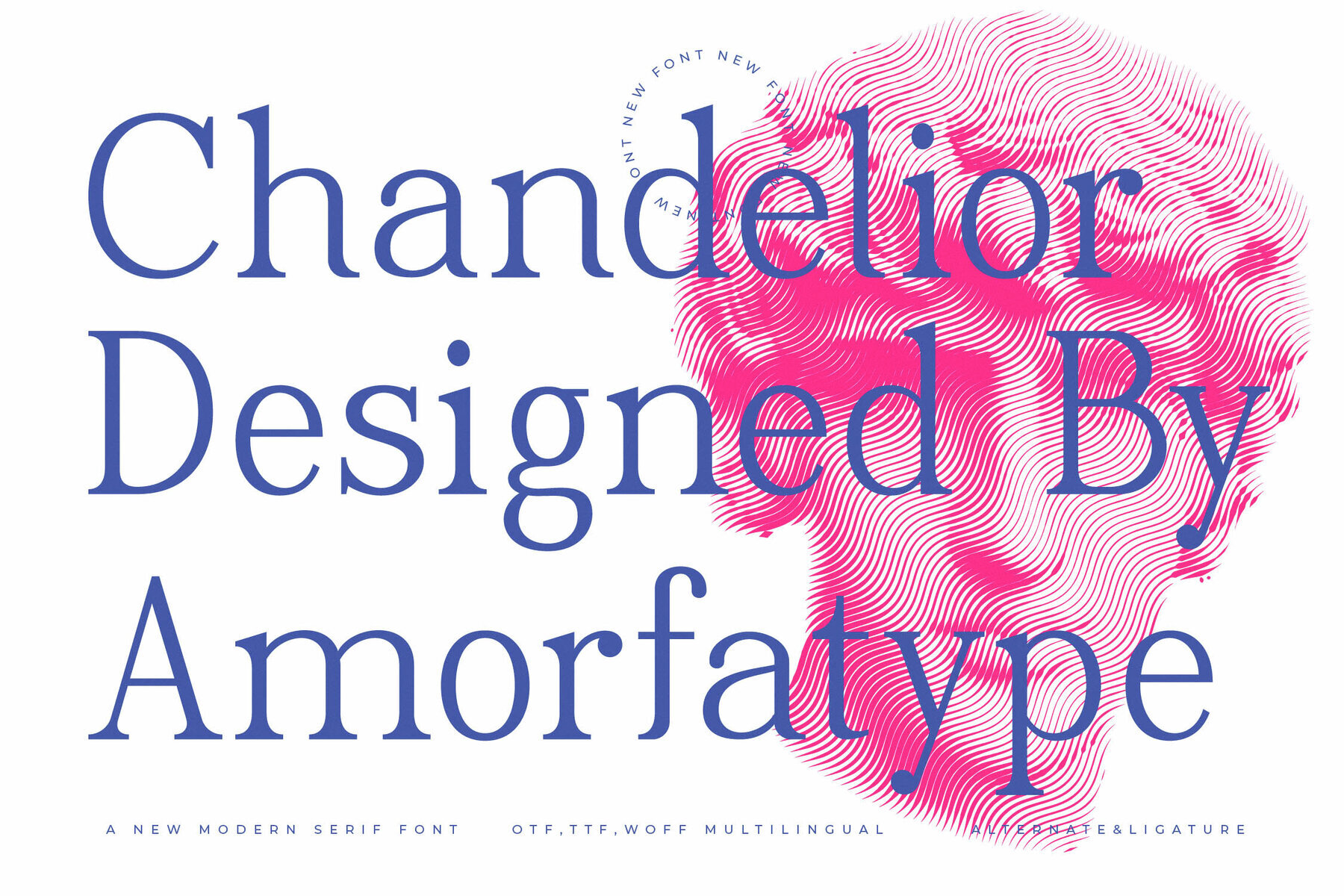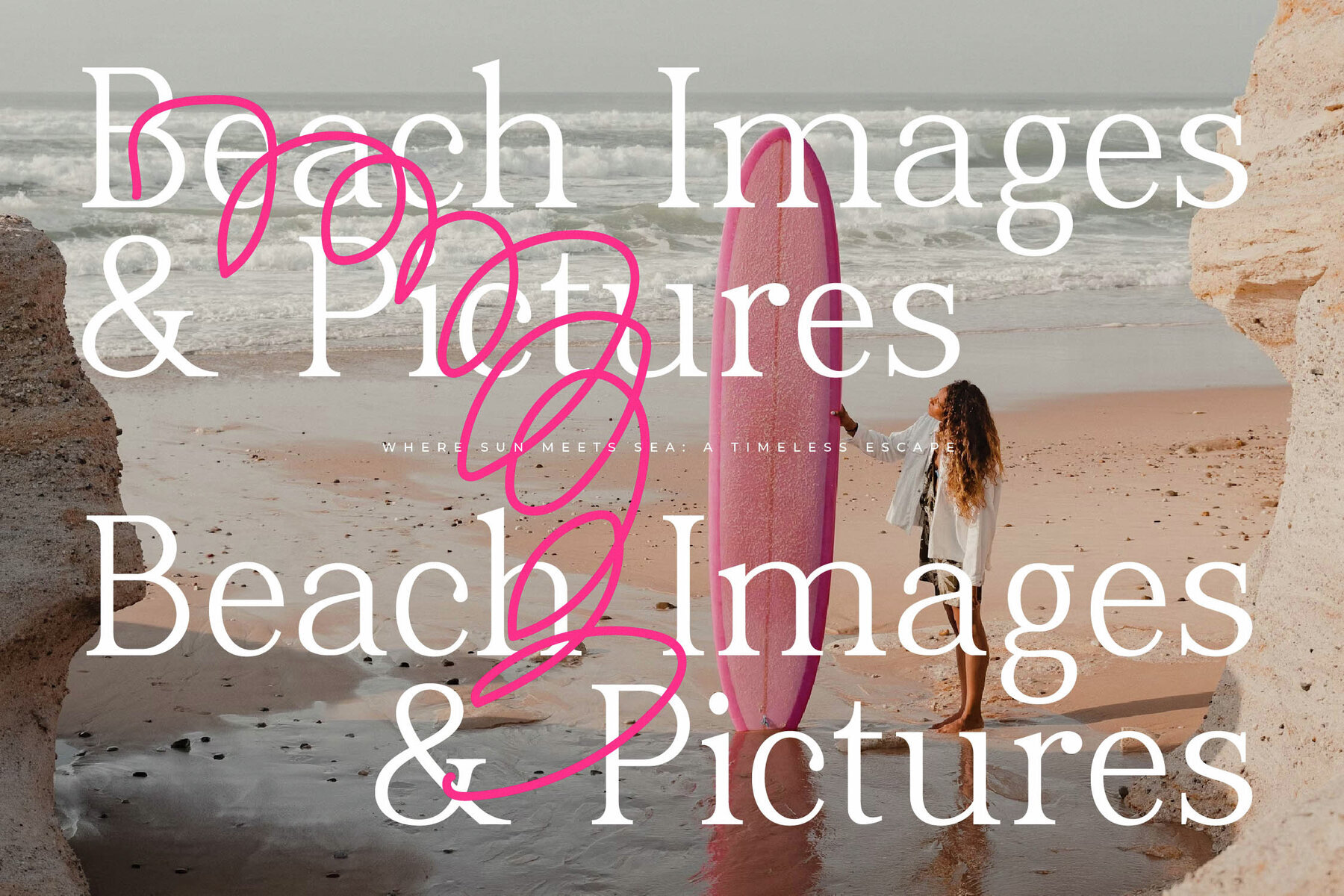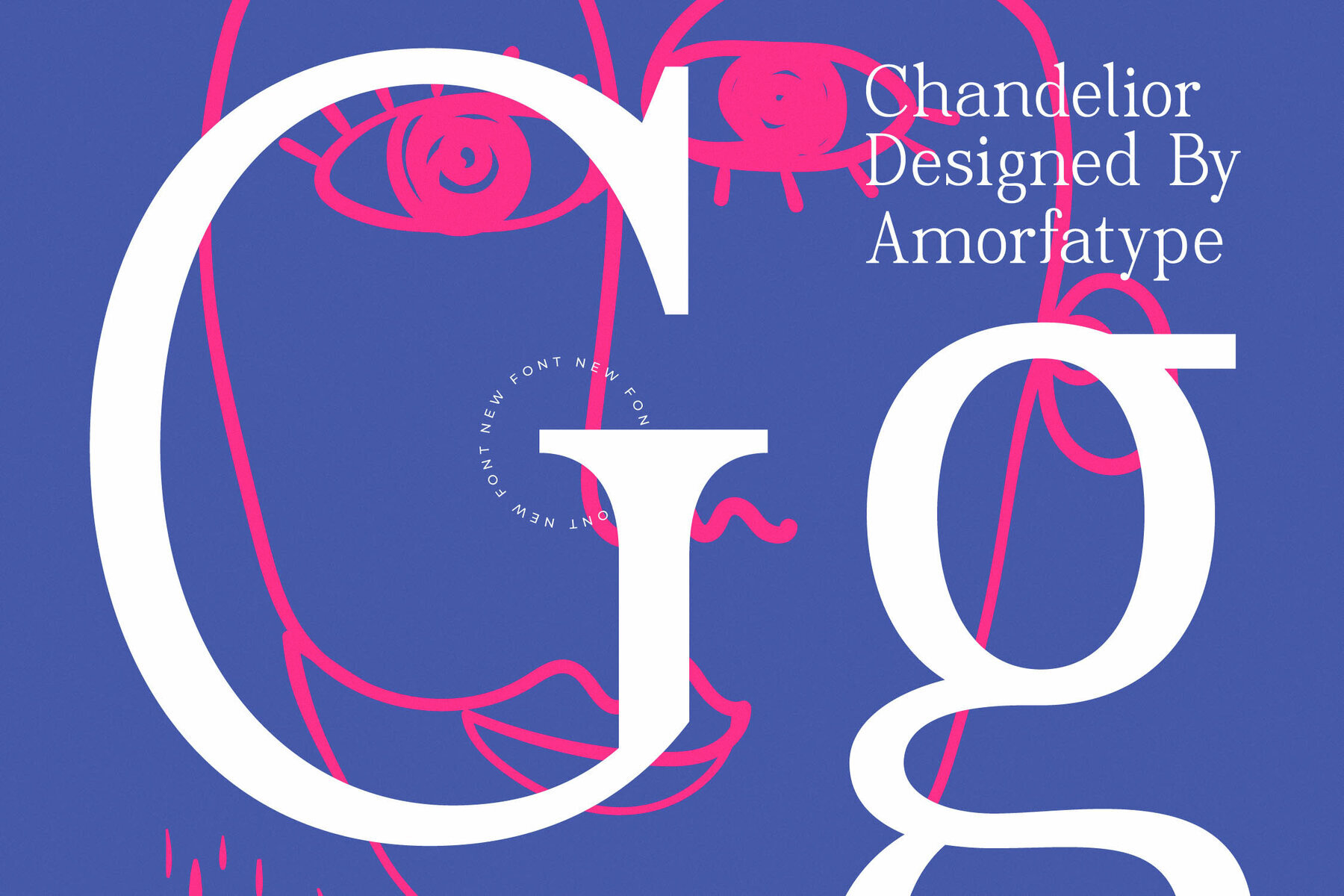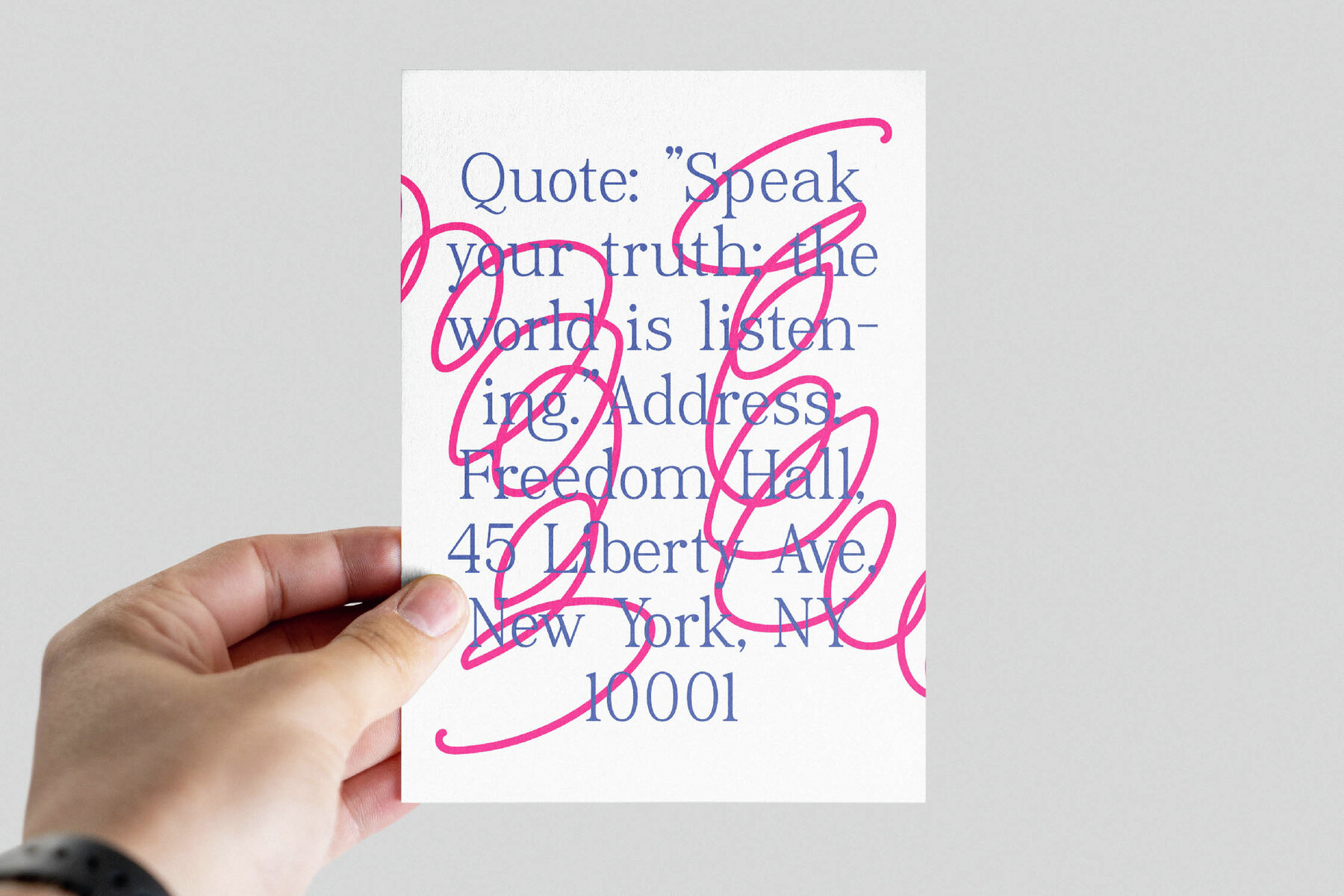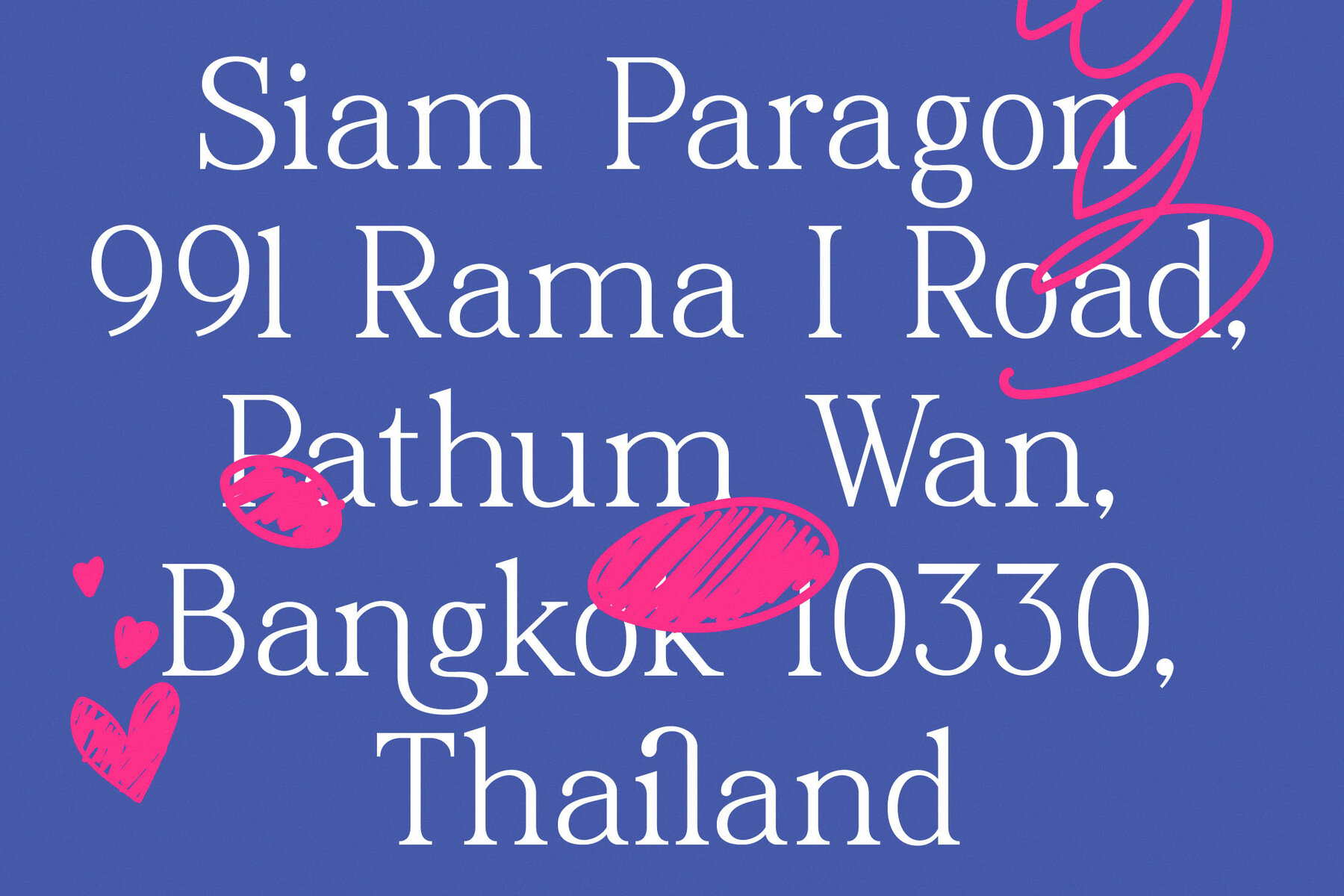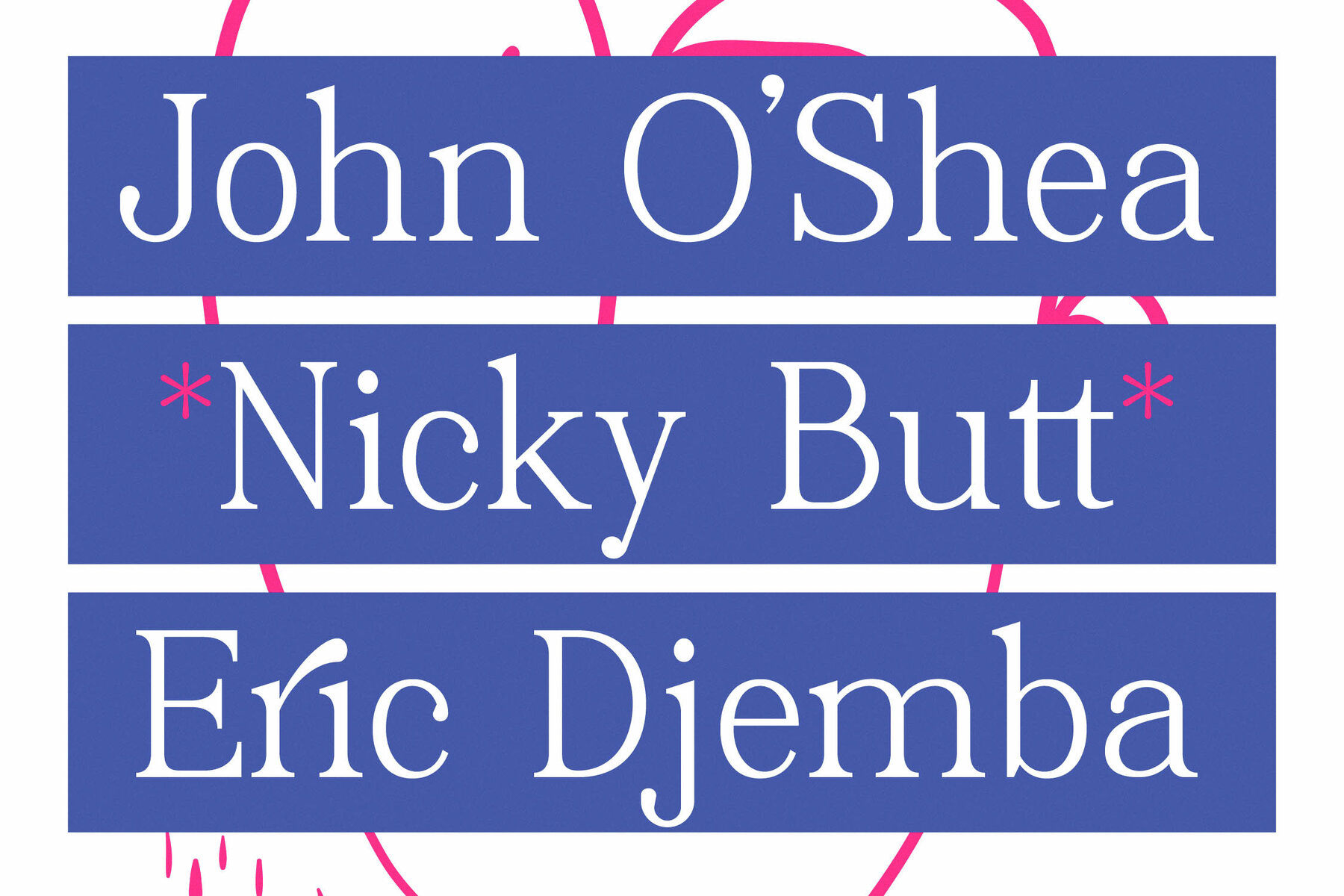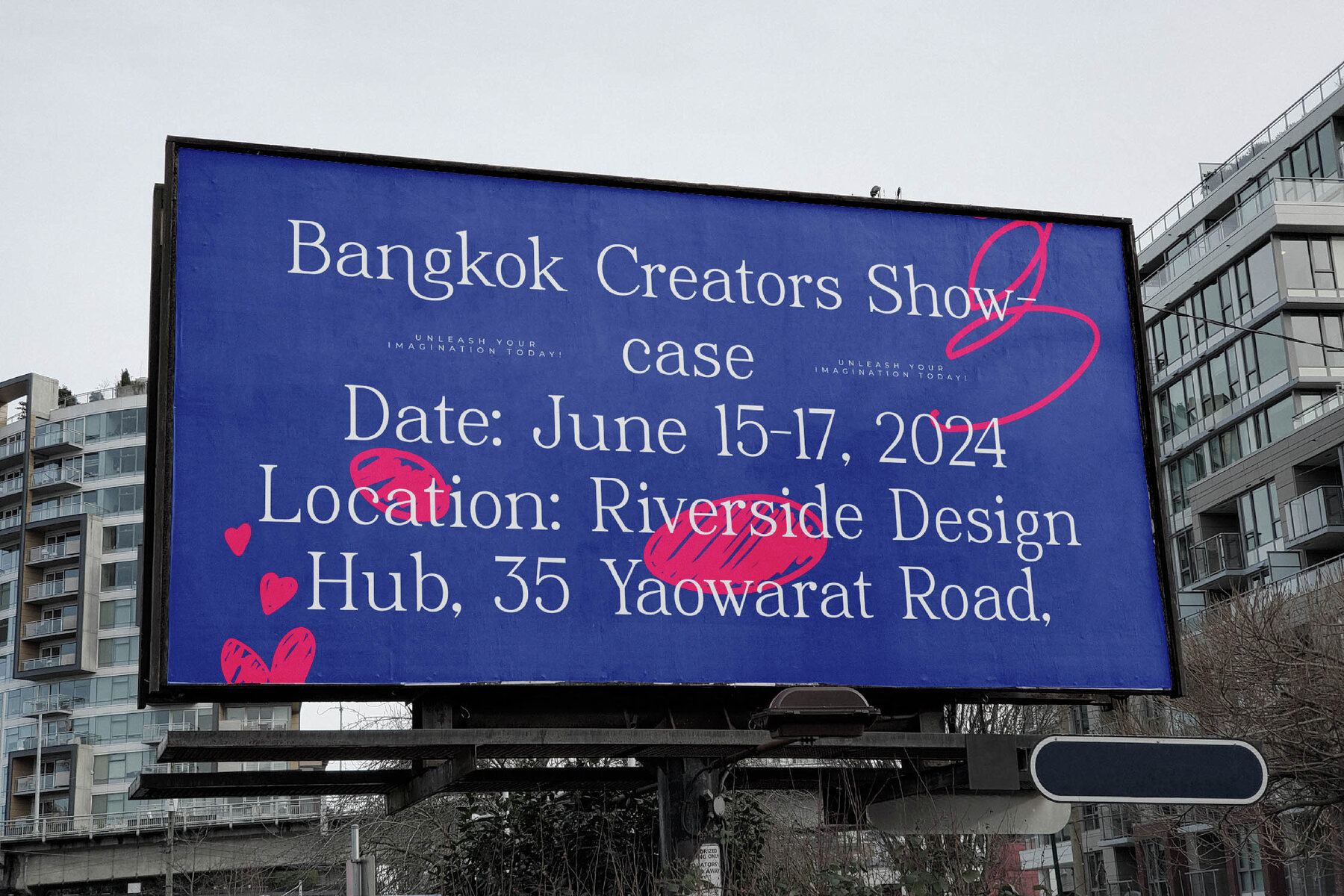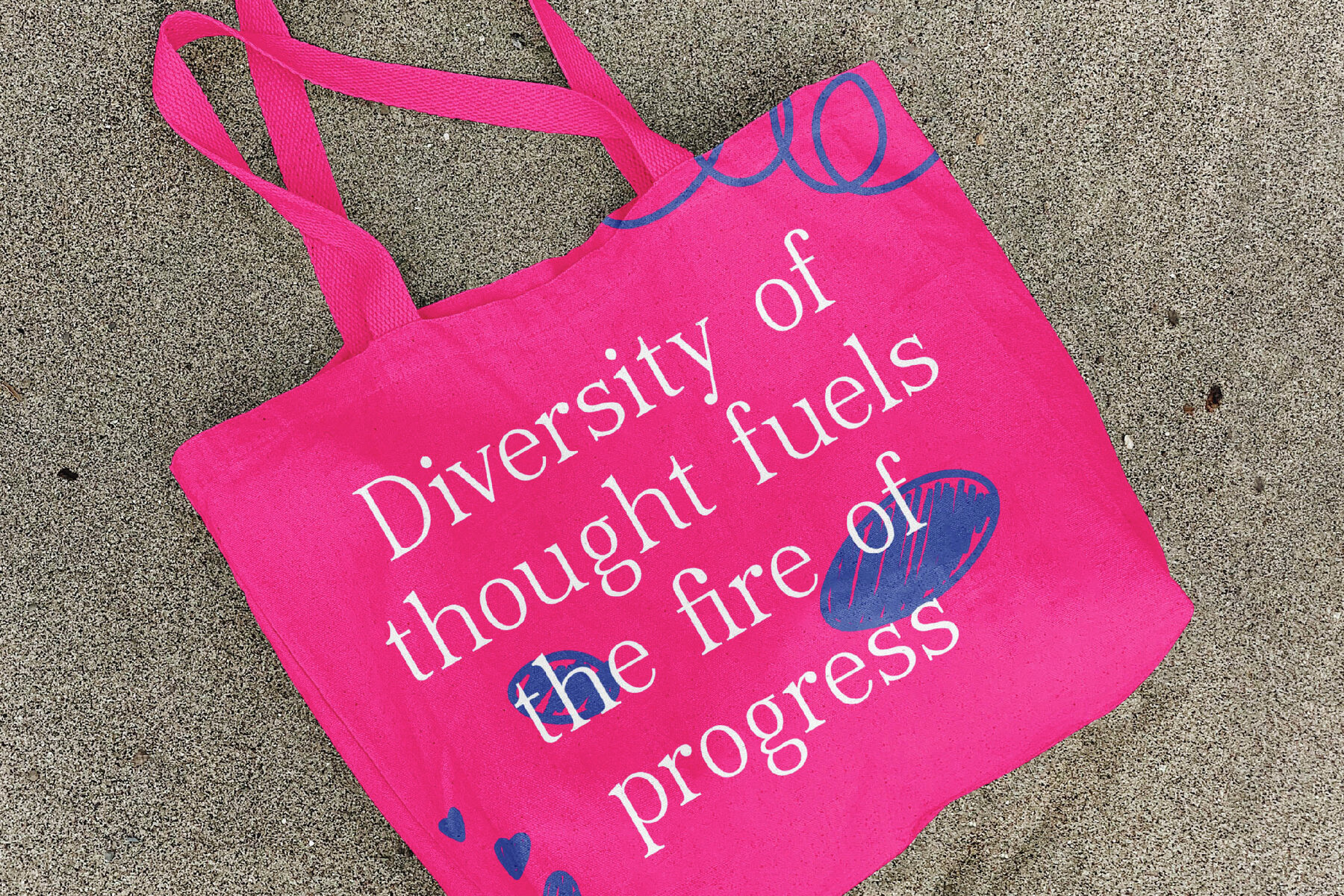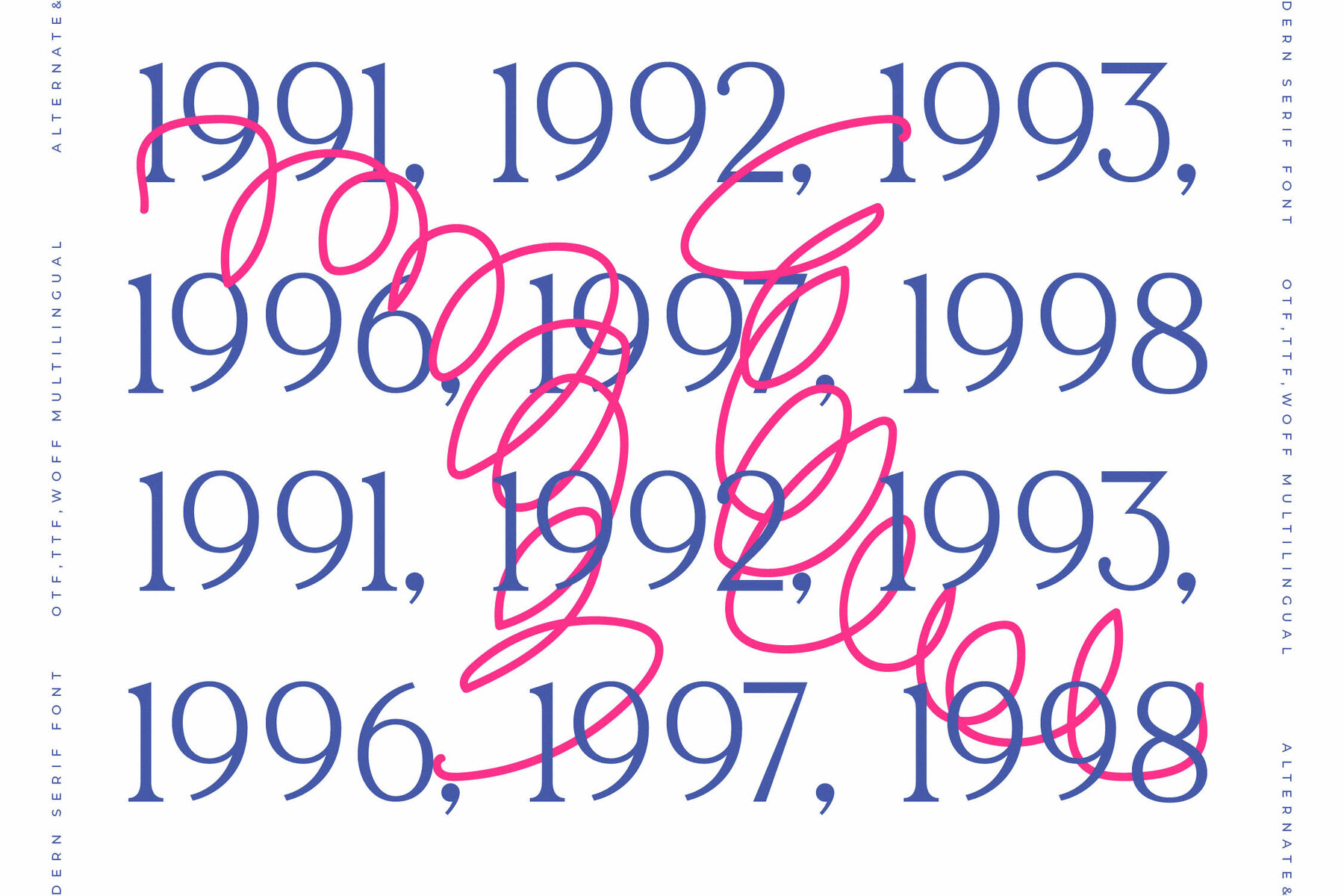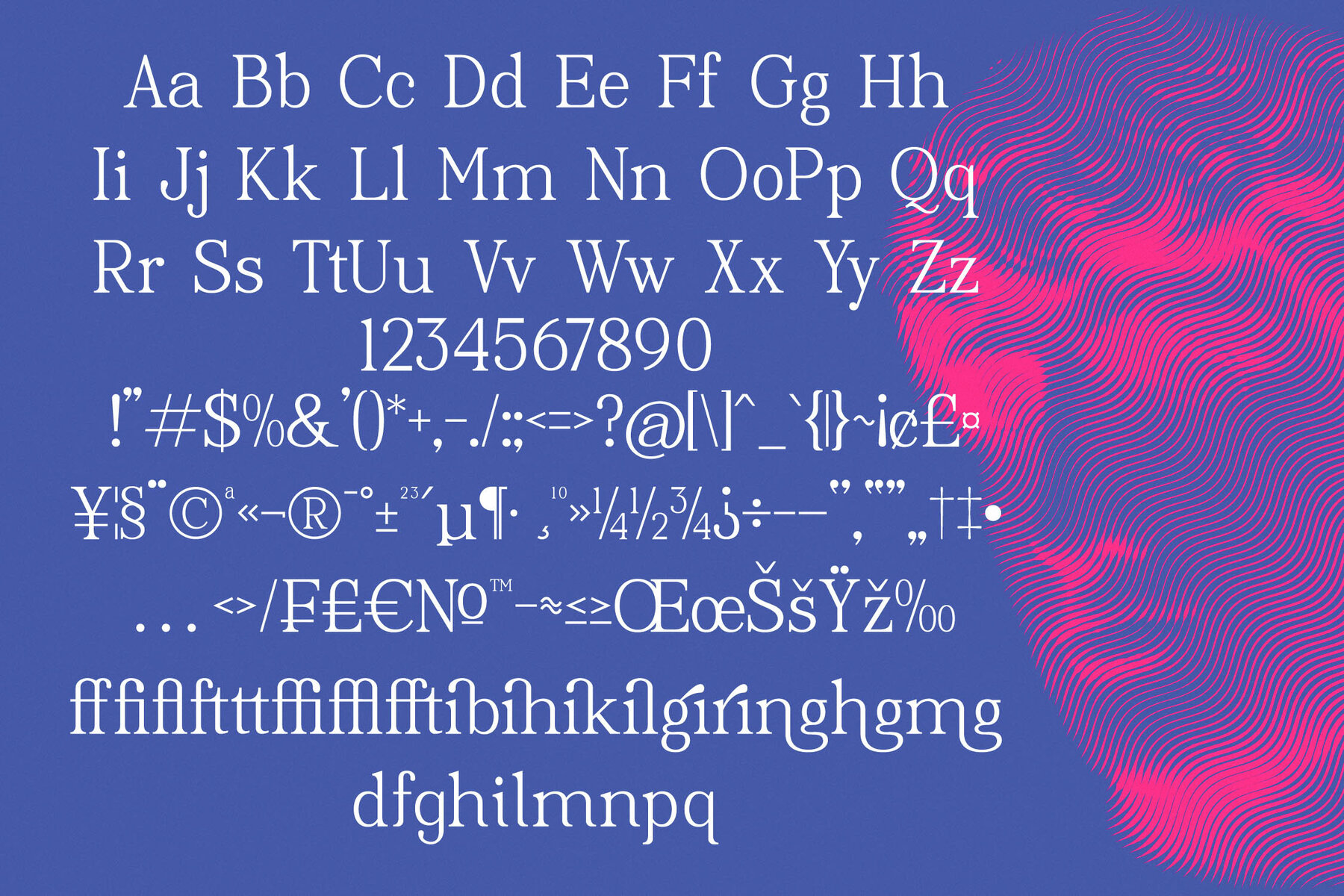
Chandelior Font
Chandelior is a modern serif font that exudes contemporary sophistication and refined elegance. Its design marries bold lines with delicate curves, creating a harmonious balance that combines classic charm with a modern aesthetic. Chandelior is an ideal choice for upscale branding and editorial projects, introducing a luxurious and stylish tone to your creative work.
Perfect for striking headlines, elegant logos, and sophisticated invitations, Chandelior offers a timeless yet modern allure. The font package includes ligatures, alternates, and swashes, and it is compatible with both PC and Mac. It's easy to install and can be accessed in Adobe Illustrator, Adobe Photoshop, Adobe InDesign, and Microsoft Word, ensuring seamless integration into your design toolkit.